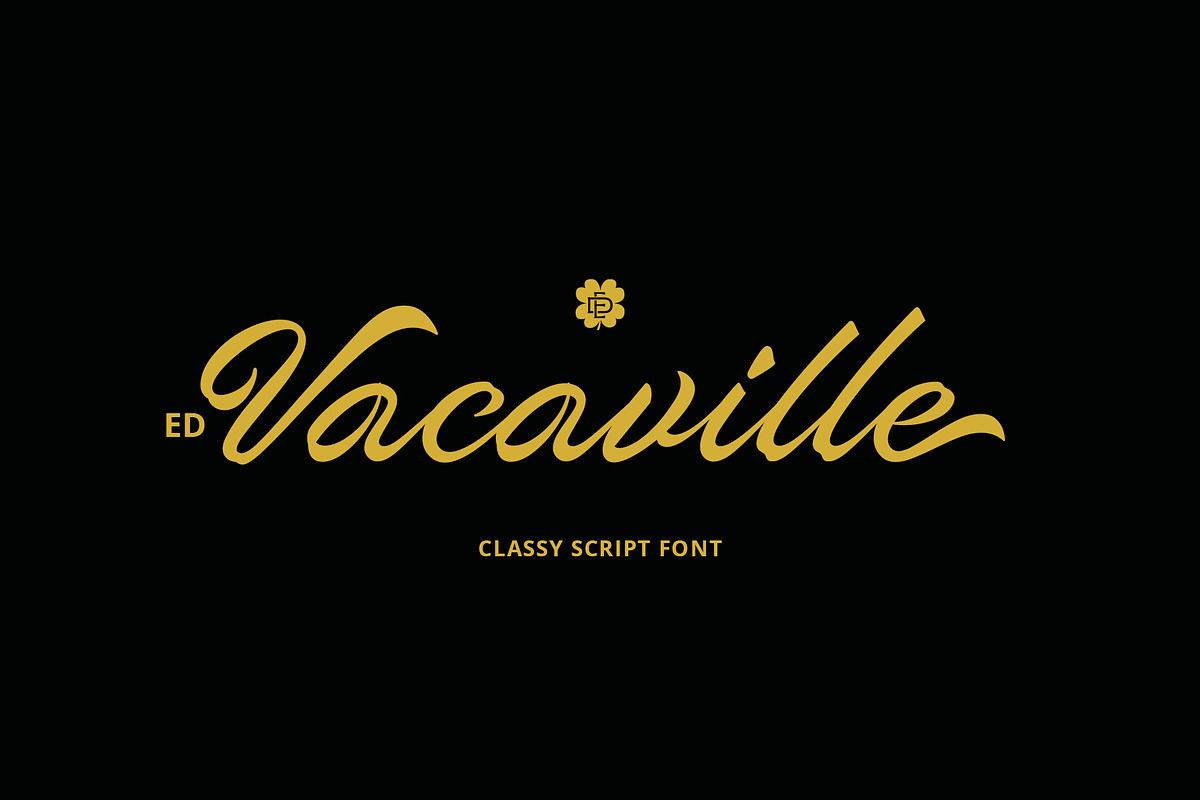
ED Vacaville Font Free Download is a beautifully crafted script typeface that blends elegance with a touch of casual charm. With its flowing, fluid letterforms and smooth strokes, ED Vacaville is perfect for projects requiring a personal, handwritten touch, including branding, invitations, logos, greeting cards, and social media content.
This font offers elegant curves and natural connections between letters, making it ideal for both large and small scale design work. It includes uppercase and lowercase letters, numerals, punctuation, and stylistic alternates, giving your typography a sophisticated yet friendly feel.
Whether you're designing for a creative brand or looking to add a warm, custom feel to your next project, ED Vacaville Font Free Download offers the perfect handwritten elegance. Test it in personal or mockup projects, and be sure to secure the appropriate license for any commercial use. Add refined beauty and smooth flow to your designs with this versatile script font.